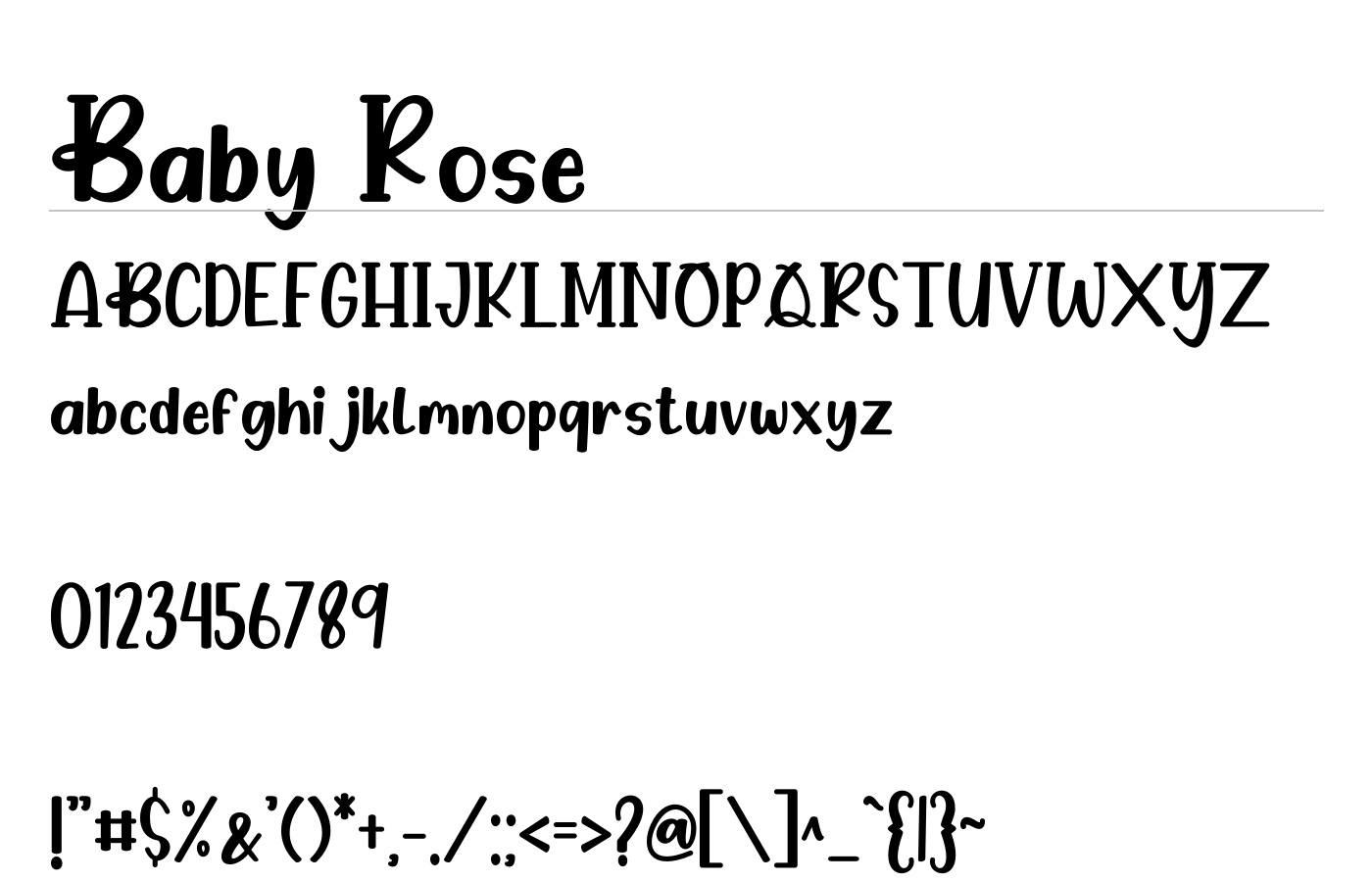
Baby Rose is a playful and charming handwritten font with a smooth, rounded style that brings a friendly and approachable feel. Its slightly condensed letterforms, coupled with quirky, irregular shapes and moderate contrast, make it perfect for adding a warm, personal touch to creative projects, children’s books, or casual branding. This font works well in headlines, logos, and packaging where a lively, informal vibe is desired.
Baby Rose Font
About Baby Rose Font
| Font family | Baby Rose Font |
| Designer | Arief Tri Sulistiyono |